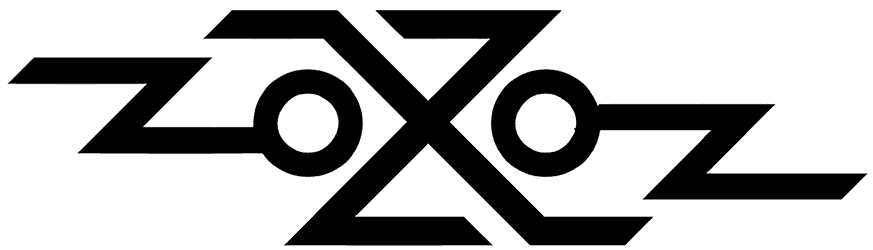
Zoxoz Font
Zoxoz is a geometric font that helps your graphic content have a beautiful polygonal touch. This font comes with a magical mixture of lowercase and uppercase letters. So it can grab the attention of the audience at first…
Zoxoz is a geometric font that helps your graphic content have a beautiful polygonal touch. This font comes with a magical mixture of lowercase and uppercase letters.
So it can grab the attention of the audience at first glance and improve the efficiency of your artwork, including illustrations, comic book covers, logos, business cards, and video game brochures. Also, it can convey a sense of momentum, dynamism, drama, or fierceness.